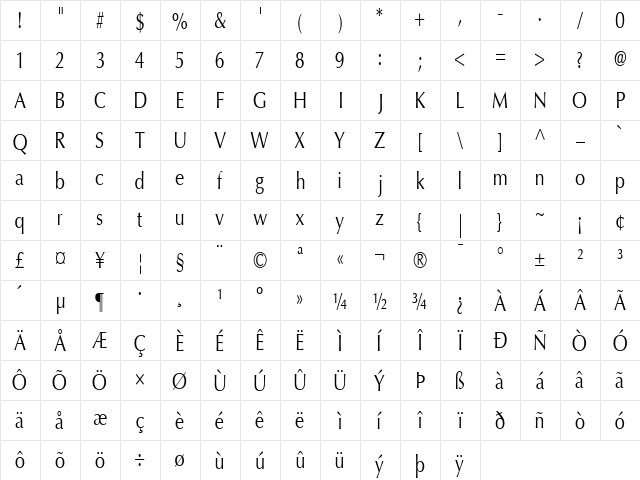
Oregon LDO Condensed Regular
| Foundry | Luke Owens |
| Designer | Luke Owens |
Design Context for Oregon LDO Condensed Typeface
Oregon LDO Condensed takes a measured approach to typography — its balanced proportions and neutral character make it a reliable workhorse for both digital and print work. The condensed width makes it efficient for tight spaces without sacrificing legibility.